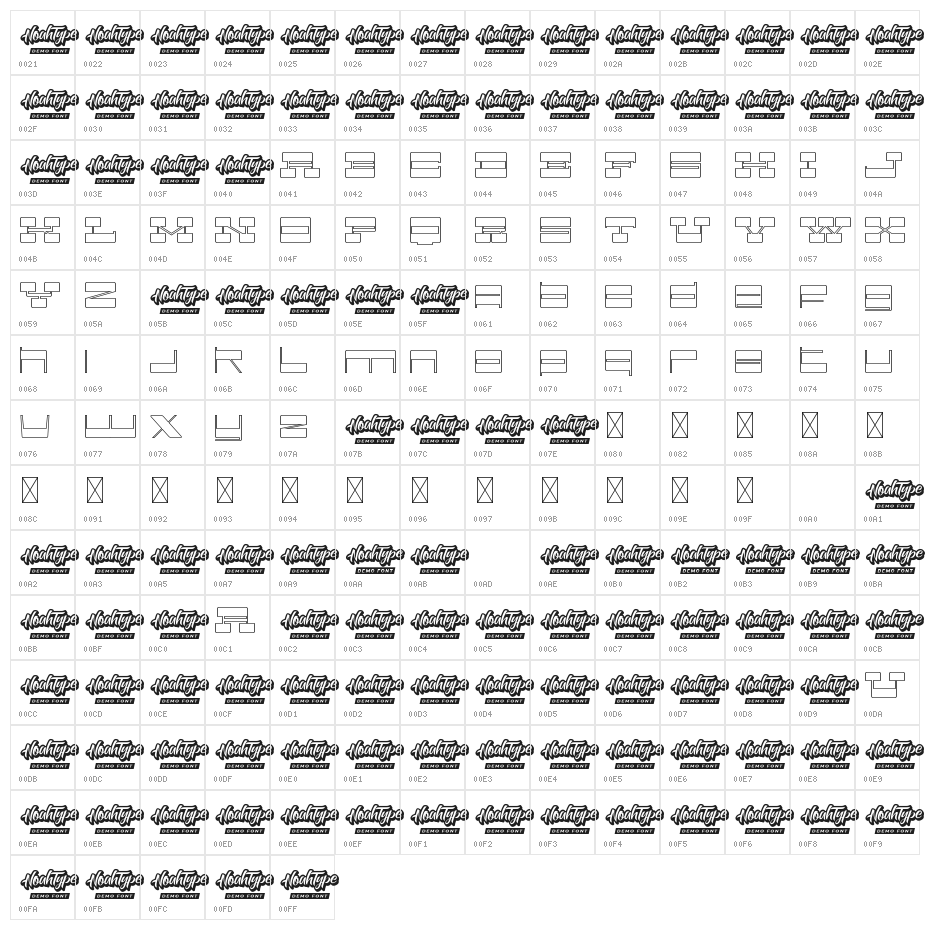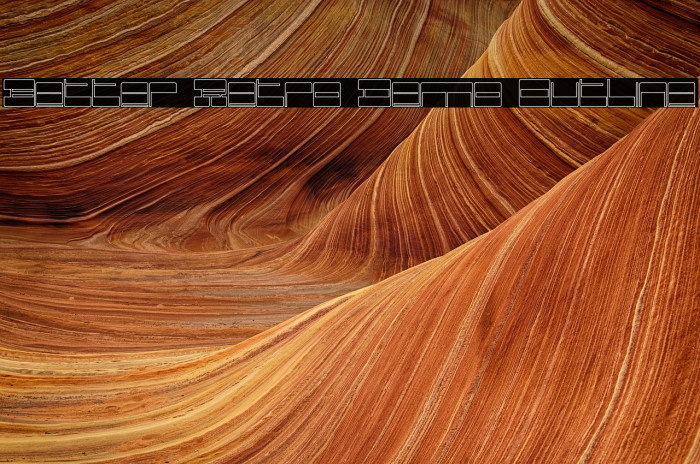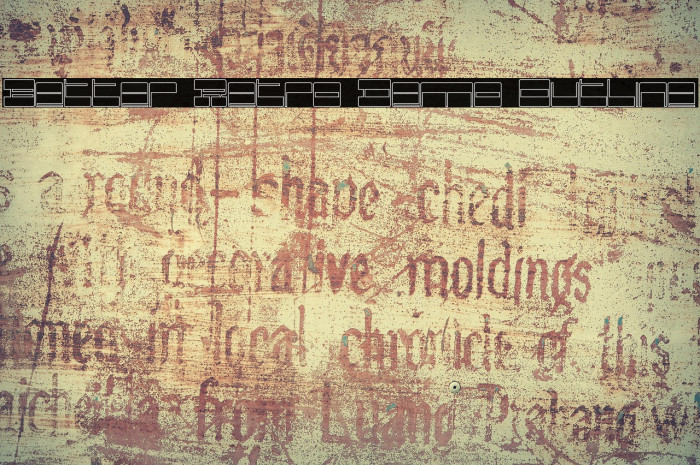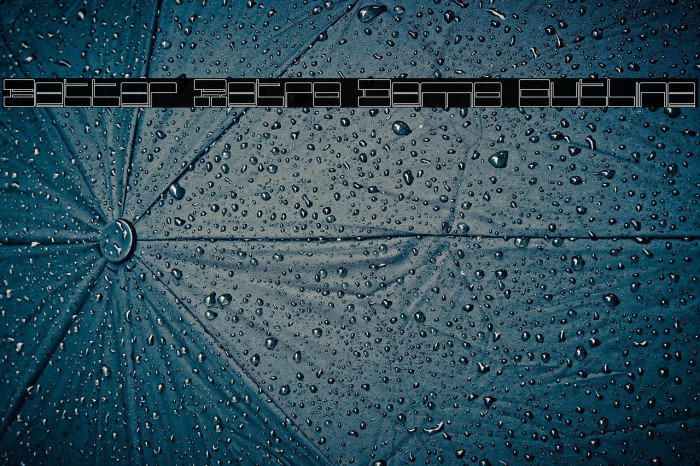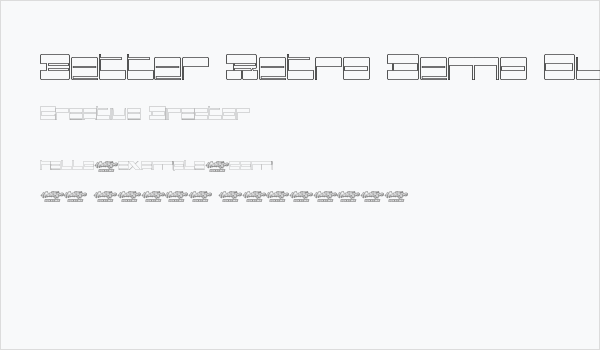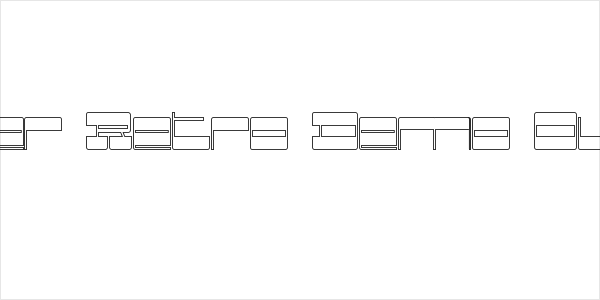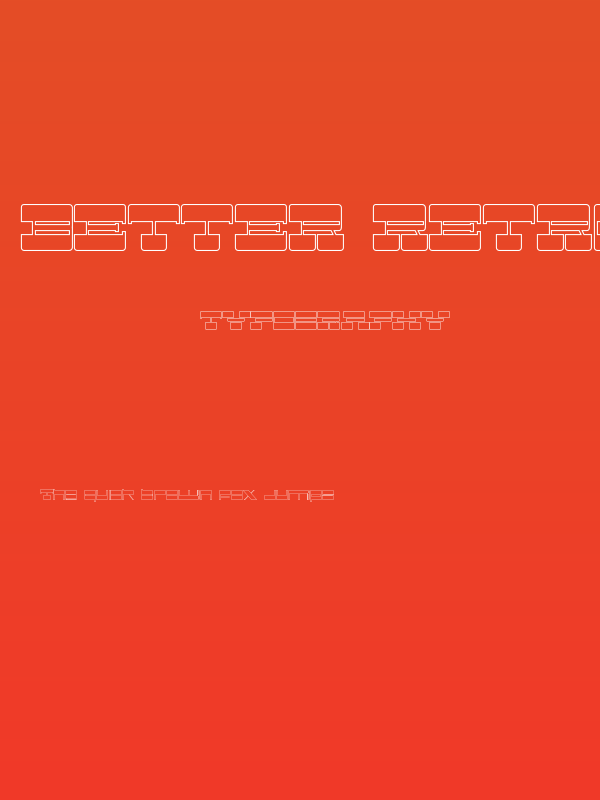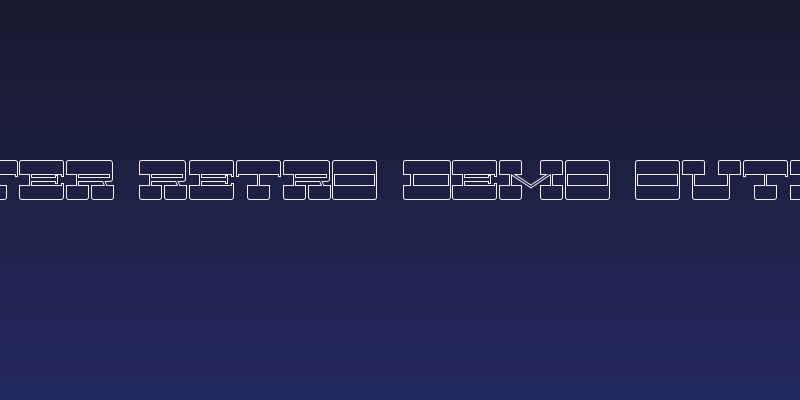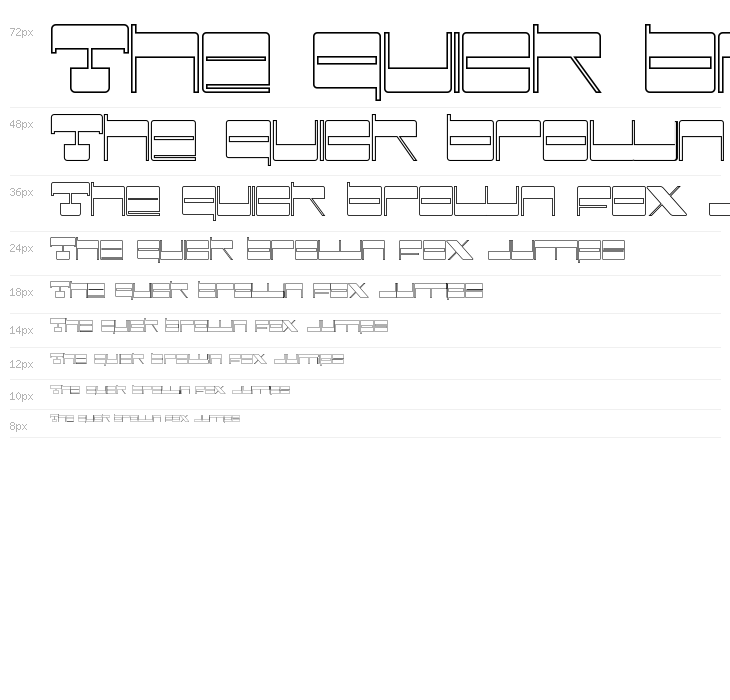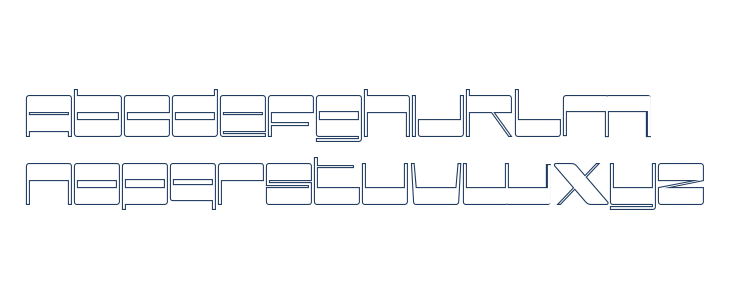
Better Retro Demo Outline Font
Better Retro Demo Outline Description
This font features a distinct retro outline style, characterized by its geometric and blocky letterforms. The uppercase and lowercase letters are designed with a consistent outline that gives a sense of depth and dimension. The characters are wide and have a futuristic feel, reminiscent of digital or arcade aesthetics. The font is highly stylized, making it suitable for creative and eye-catching designs. Its unique structure and bold outlines make it stand out, ideal for projects that require a strong visual impact.
| Overall Style | Retro, Futuristic |
| Proposed Projects | Ideal for retro-themed designs, video game graphics, posters, and branding that requires a bold and distinctive look. |